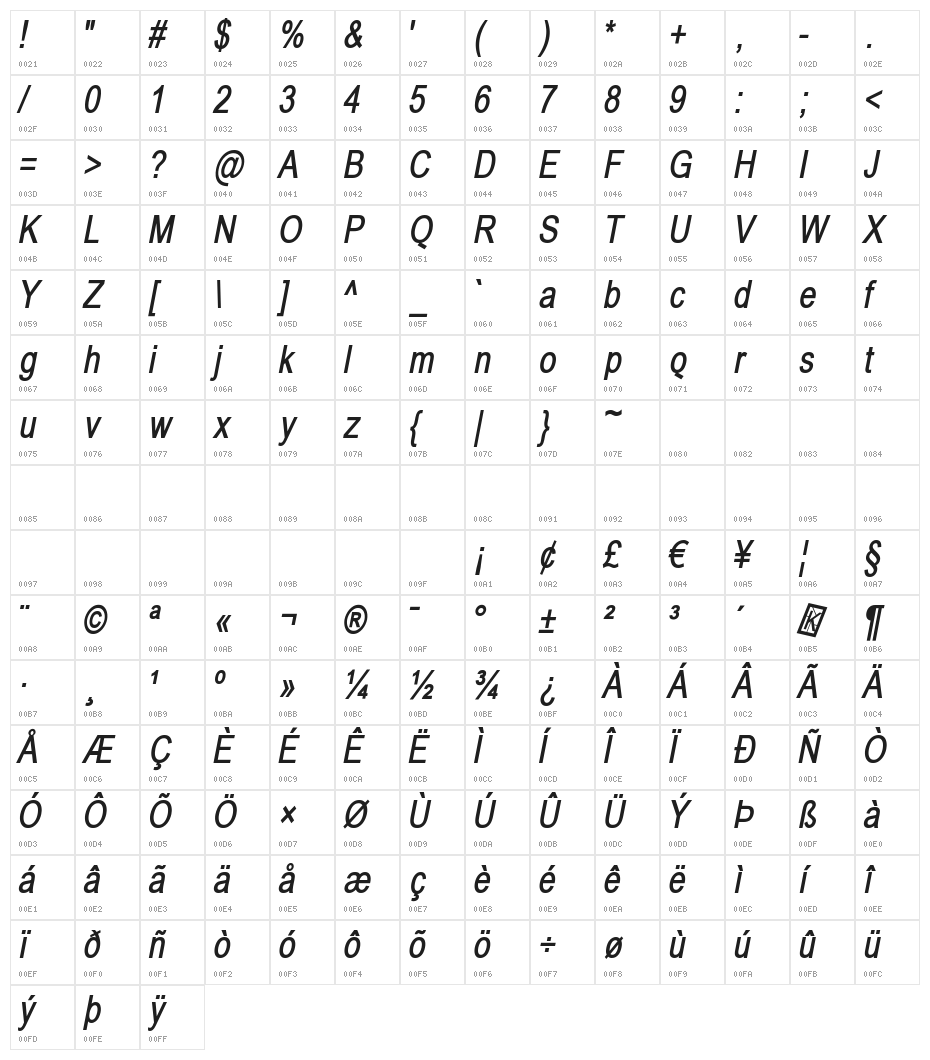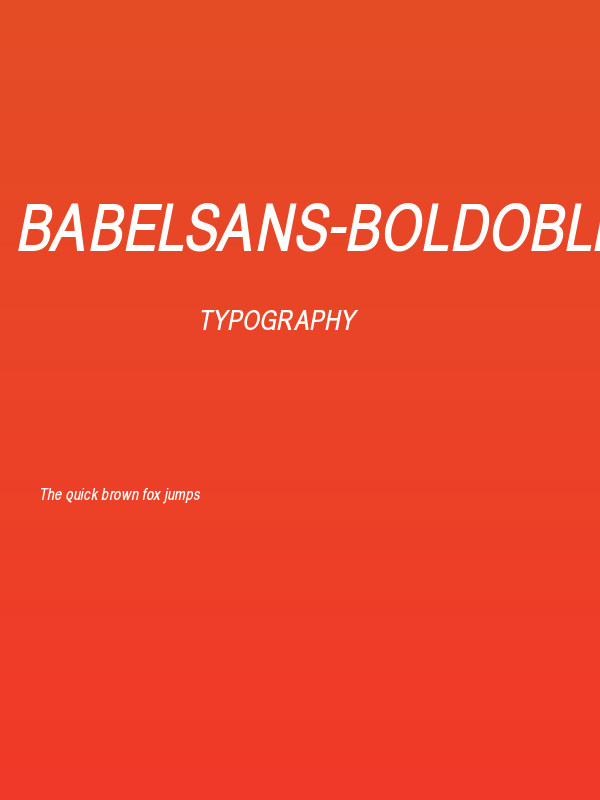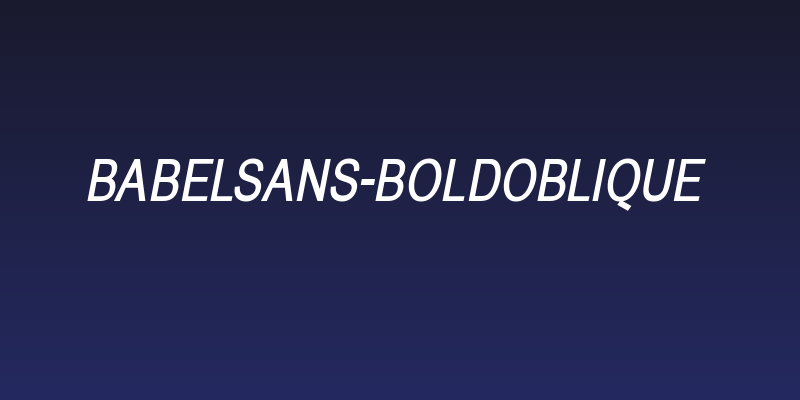
BabelSans-BoldOblique Font
BabelSans-BoldOblique Description
This font features a bold and oblique style, characterized by its strong, slanted letterforms that convey a sense of dynamism and modernity. The uppercase and lowercase letters maintain a consistent weight, providing a balanced appearance across the alphabet. The numerals are clear and legible, making them suitable for various applications. Special characters are included, ensuring versatility in design projects. The overall design is sleek and contemporary, with a focus on readability and impact.
| Use Case | Headlines, Logos, Advertising |
| Proposed Projects | Ideal for branding, advertising, headlines, and digital media projects where a strong, modern impression is desired. |